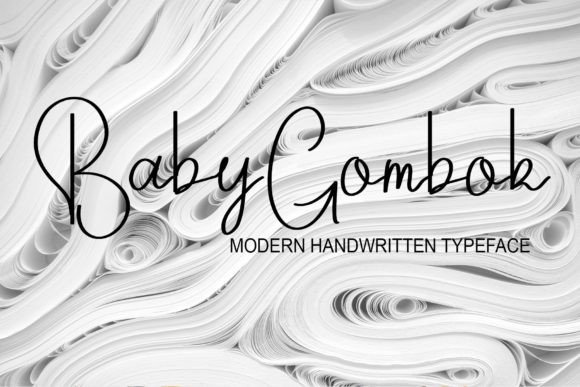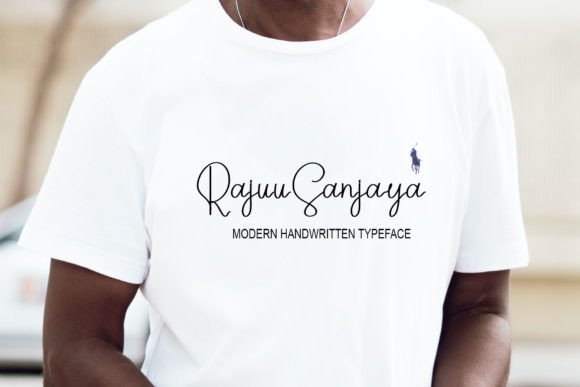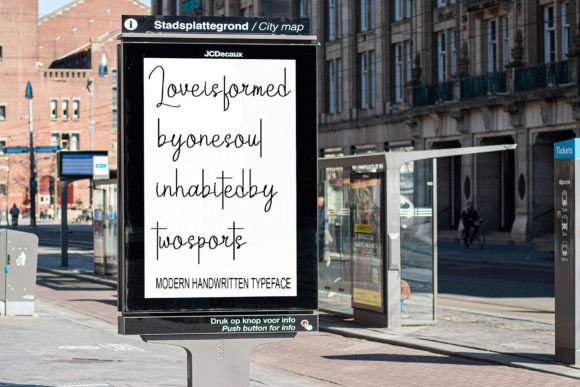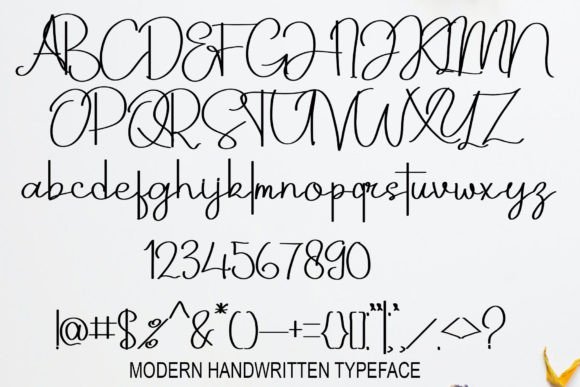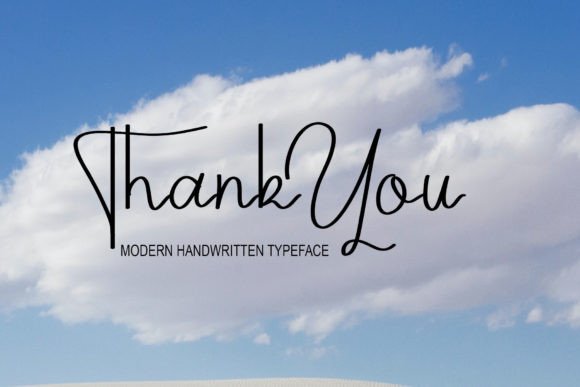
Introduction to Kanza Bethirk Font
Do you ever find yourself in the middle of a creative project, struggling to find the perfect font to bring your vision to life? For designers, the search for that elusive perfect font can be a daunting task. But what if I told you that there’s a font that can elevate your designs to the next level, without breaking the bank or requiring hours of searching? Enter the Kanza Bethirk Font, a hand-written font that’s perfect for websites, wedding invitations, business cards, signatures, and advertisements.
| 📌 Product Name | Kanza Bethirk Font |
| 👤 Author | Canden Meutuah |
This font is a game-changer for designers, offering a unique and stylish touch to any design project. With its transparent background, it’s easy to use and customize to fit your needs. Plus, with its high-quality design, you can be sure that your designs will stand out from the crowd.
Key Features of Kanza Bethirk Font
- Designed with a unique, modern aesthetic for various design applications
Honest Review: Kanza Bethirk Font
I recently came across the Kanza Bethirk Font, and I was excited to see how it would work in my creative project. The font is available for a free download, which is always a bonus. I was able to get started right away, thanks to its high quality and user-friendly design.
One thing that really stands out about the Kanza Bethirk Font is its versatility. It can be used for a wide range of applications, from logos to typography, and it always looks great. I was able to create a beautiful and eye-catching design with ease, thanks to its clear and transparent background.
- High quality and crisp font
- Easy to use and customize
- May not be suitable for certain design styles
- Some users may find it too bold or overpowering
Overall, I’m really impressed with the Kanza Bethirk Font. It’s a valuable design resource that I would highly recommend to anyone looking for a high-quality font for their creative project. While it may have some limitations, I think it’s well worth the free download.
Tips for Getting the Most Out of Kanza Bethirk Font
Use the Kanza Bethirk Font for creative projects that require a unique and high-quality design. Experiment with different font sizes, colors, and styles to create a visually appealing design. You can also use the font on a transparent background to give your design a more professional look.
The Kanza Bethirk Font is commonly used for logo design, branding, and creative projects that require a unique and high-quality design. It’s also a great resource for designers who want to add a touch of elegance and sophistication to their designs.
Is the Kanza Bethirk Font suitable for high-quality print projects?
Yes, the Kanza Bethirk Font is suitable for high-quality print projects. With its high-resolution design and clear typography, this font can add a professional touch to your print materials, such as business cards, brochures, and posters. However, please note that the font’s quality may vary depending on the print resolution and paper quality.